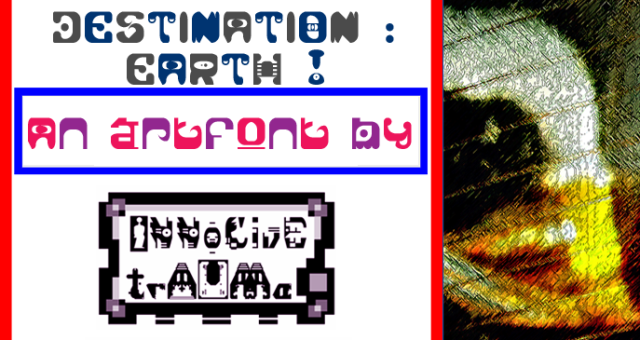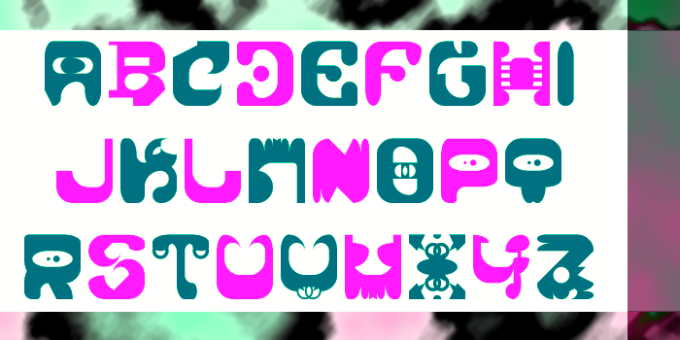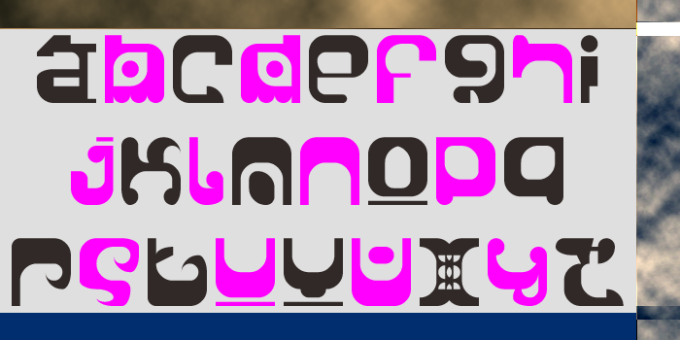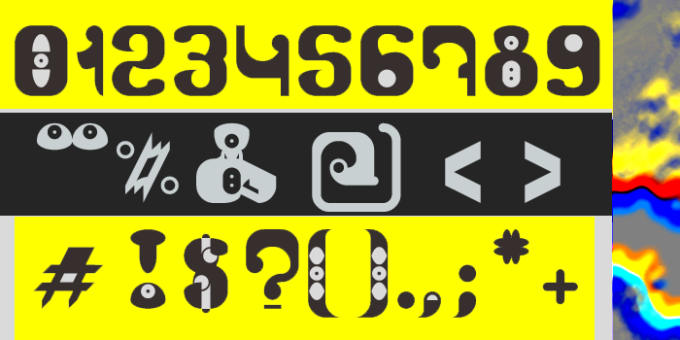
trAUMa 14 / Destination : Earth !
"Destination : Earth !", like all the "trAUMa" series, works at the frontier between Art & Type Design, Figuration & Abstraction, each font is a comprehensive world in which every glyph is a "living" entity. But put together they can produce your messages in the most accurate way.